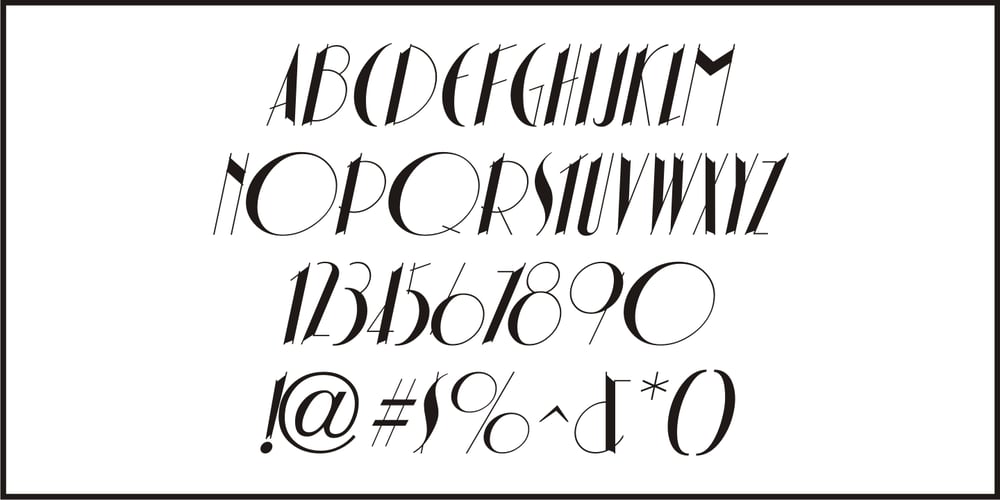
Chinese Song JNL Font Family was designed by Jeff Levine and published by Jeff Levine. Chinese Song JNL contains 2 styles and family package options. The unusual hand lettering found on the 1945 sheet music for “Chinese Song” provided not only the design inspiration but the font’s name as well. A hybrid of Asian and Art Deco influences, Chinese Song JNL is available in both regular and oblique versions.